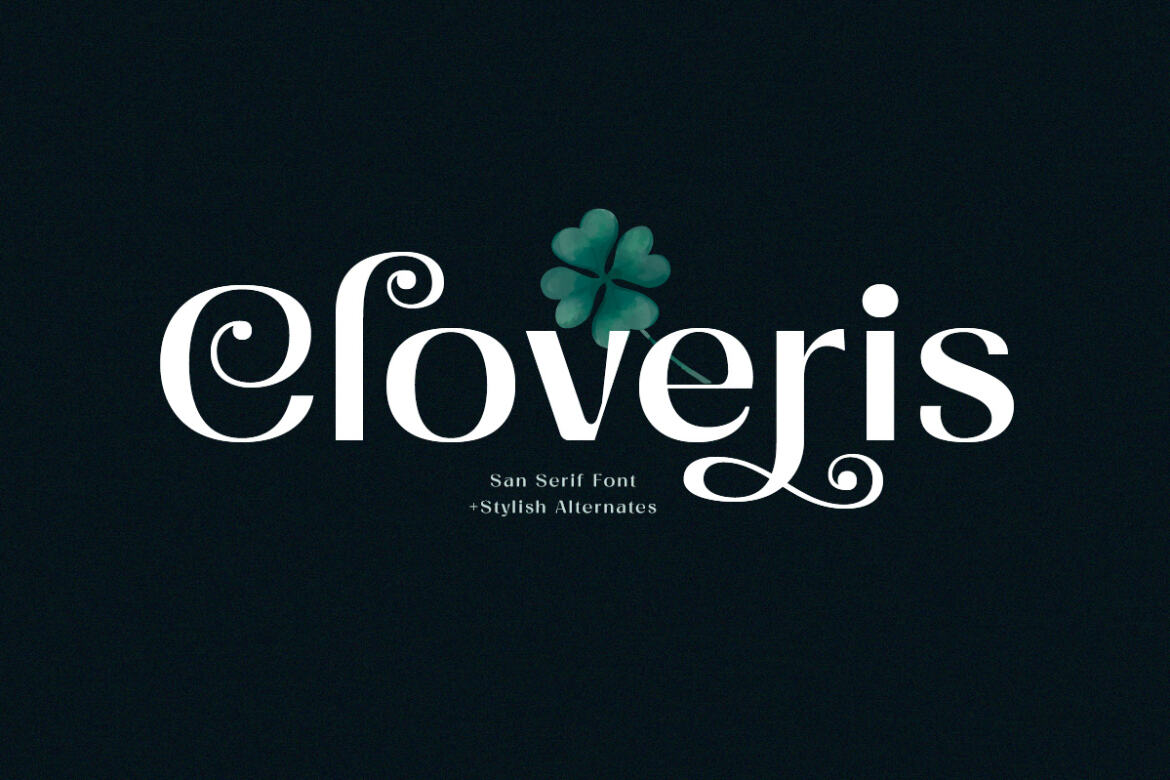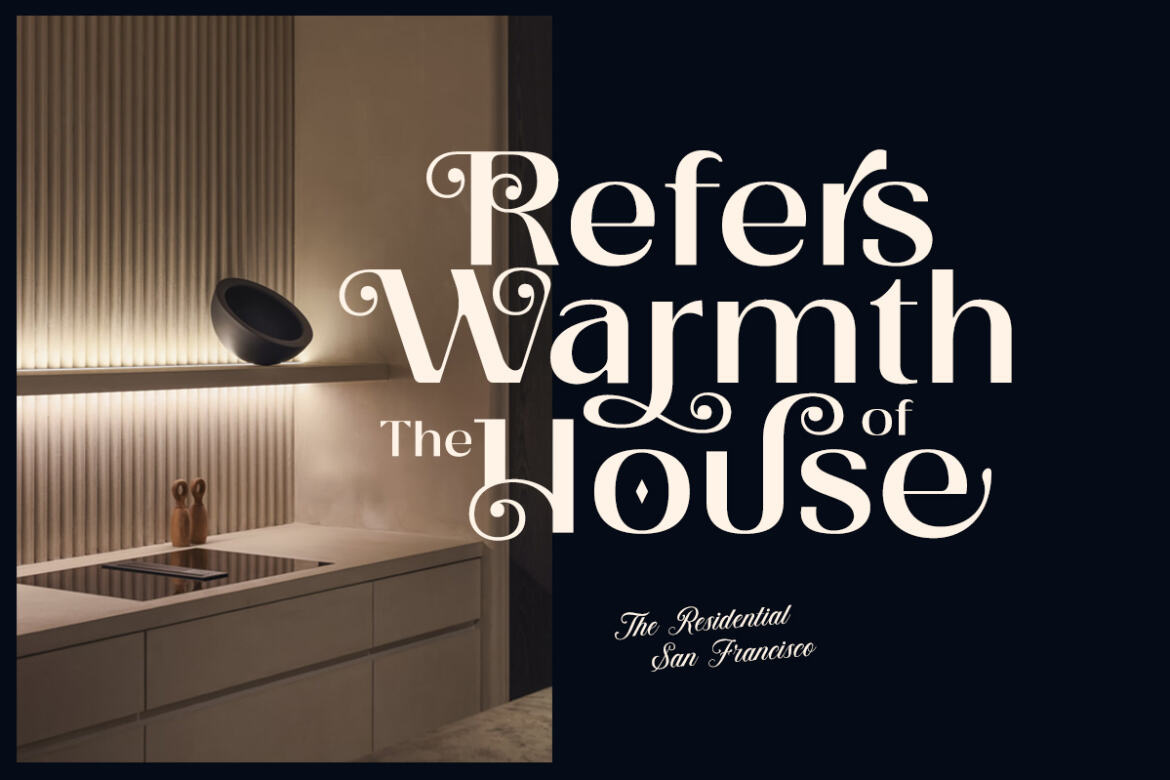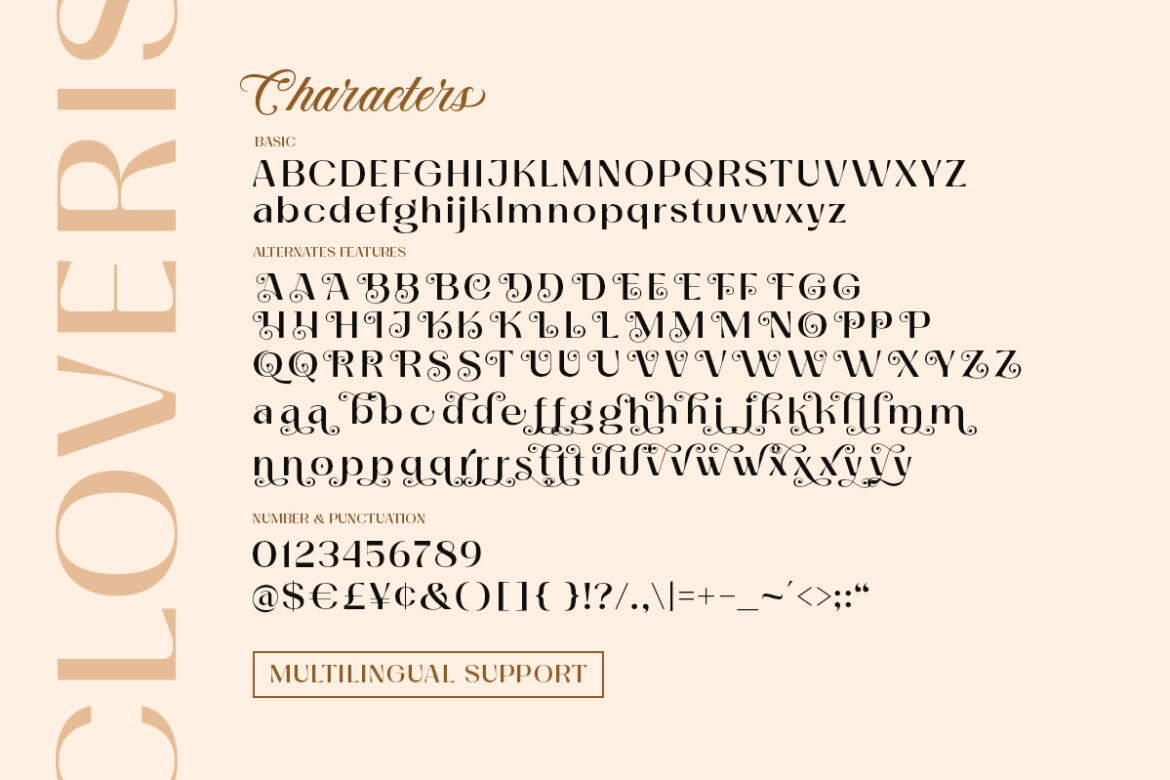
01. Ganiser Sans – Extra Premade Logo from Hendry Juanda
Ganiser Sans is a vintage display typeface with the touch of nostalgic feel. This typeface has unique looks and strong character with extra premade logo as bonus. This font perfectly made to be applied especially in logo, and the other various formal forms such as invitations, labels, magazines, books, greeting / wedding cards, packaging, fashion, make up, stationery, novels, labels or any type of advertising purpose. We highly recommend using a program that supports OpenType features and Glyphs panels like many of Adobe apps and Corel Draw, so you can see and access all Glyph variations.
02. Cloveris – Stylish Sans Serif Font from Hendry Juanda
Cloveris is a sophisticated sans serif with unique swirls and swashes. The letterform makes this typeface unique and stands out rather than the regular sans serif font. Very suitable for logo, headline, tittle, and the other various formal forms such as invitations, labels, logos, magazines, books, greeting / wedding cards, packaging, fashion, make up, stationery, novels, labels or any type of advertising purpose. We highly recommend using a program that supports OpenType features and Glyphs panels like many of Adobe apps and Corel Draw, so you can see and access all Glyph variations. How to access opentype feature : letterhend.com/tutorials/using-opentype-feature-in-any-software/
03. Abstract Collage Cutout Shapes from Nastia Smiyan
Abstract Collage Cutout Shapes – a set of creative collage textures and abstract elements in bright playful colours. You will find 25 playful textures and 120 collage shapes which contain brush strokes, lines, dots, abstract blobs, cutout figures, floral elements, lips, geometric stars etc. Please click and scroll through all the previews to see everything that is included.
04. Throostle Font from Allouse Studio
Throostle is perfect for product packaging, branding project, megazine, social media, wedding, or just used to express words above the background. This font includes OTF&TTF&Woff, Throostle also multilingual support.
05. Garten House – Unique Display Font from Hendry Juanda
Garten House is a sophisticated high contrast display serif typeface. The ligature character makes this typeface unique and stands out rather than the regular serif font. Very suitable for logo, headline, tittle, and the other various formal forms such as invitations, labels, logos, magazines, books, greeting / wedding cards, packaging, fashion, make up, stationery, novels, labels or any type of advertising purpose.
06. Furry Monster – 3D Lettering from Dealjumbo
07. Winter Botanicals Vector Illustrations from GVGraphics
A big collection of hand drawn Autumn and Winter illustrations – berries, branches, flowers and leaves. Perfect for any creative project – party decorations, invitation cards, cupcake toppers, favor tags, label stickers, scrapbooking, stationary, printable wall art, branding projects, packaging, posters, calendars and many more!
08. Hot Coffee Cold Weather Vector Illustrations from GVGraphics
Hand Drawn Illustrations and Patterns for the Autumn and Winter cold weather. These are perfect for any DIY creative projects – scrapbooking, decoupage, gift wrapping, invitations and greeting cards, party decoration, photo backdrops, planner stickers, tags, stationary, photo albums, fabric transfers, home decor and so much more.